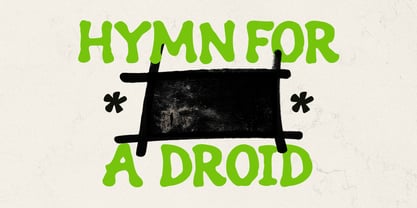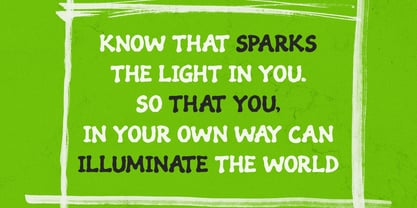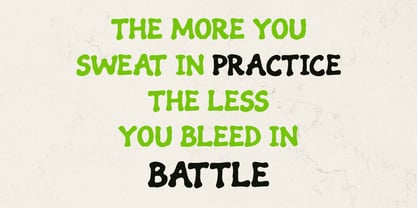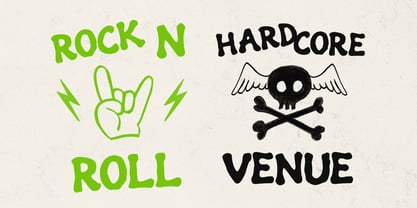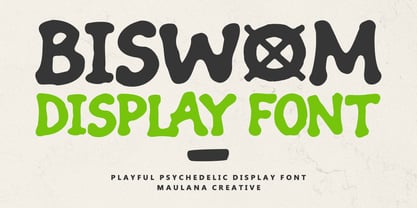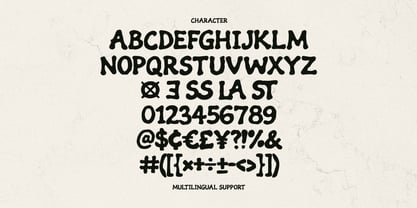
MC Biswom
by Maulana Creative
The MC Biswom Font Family was designed by Gilang Maulana and published by Maulana Creative. MC Biswom contains 1 styles. More about this family
Biswom is a vibrant and energetic display font that blends retro psychedelic vibes with a modern, playful twist. Featuring organic, fluid shapes and bold, hand-drawn weights, this font captures a sense of rhythmic movement. It is perfect for expressive branding, rock posters, streetwear apparel, and any creative project that needs a touch of rebellious, "hardcore" personality. Its unique ligatures and multilingual support make it as functional as it is stylish.
Designers: Gilang Maulana
Foundry: Maulana Creative